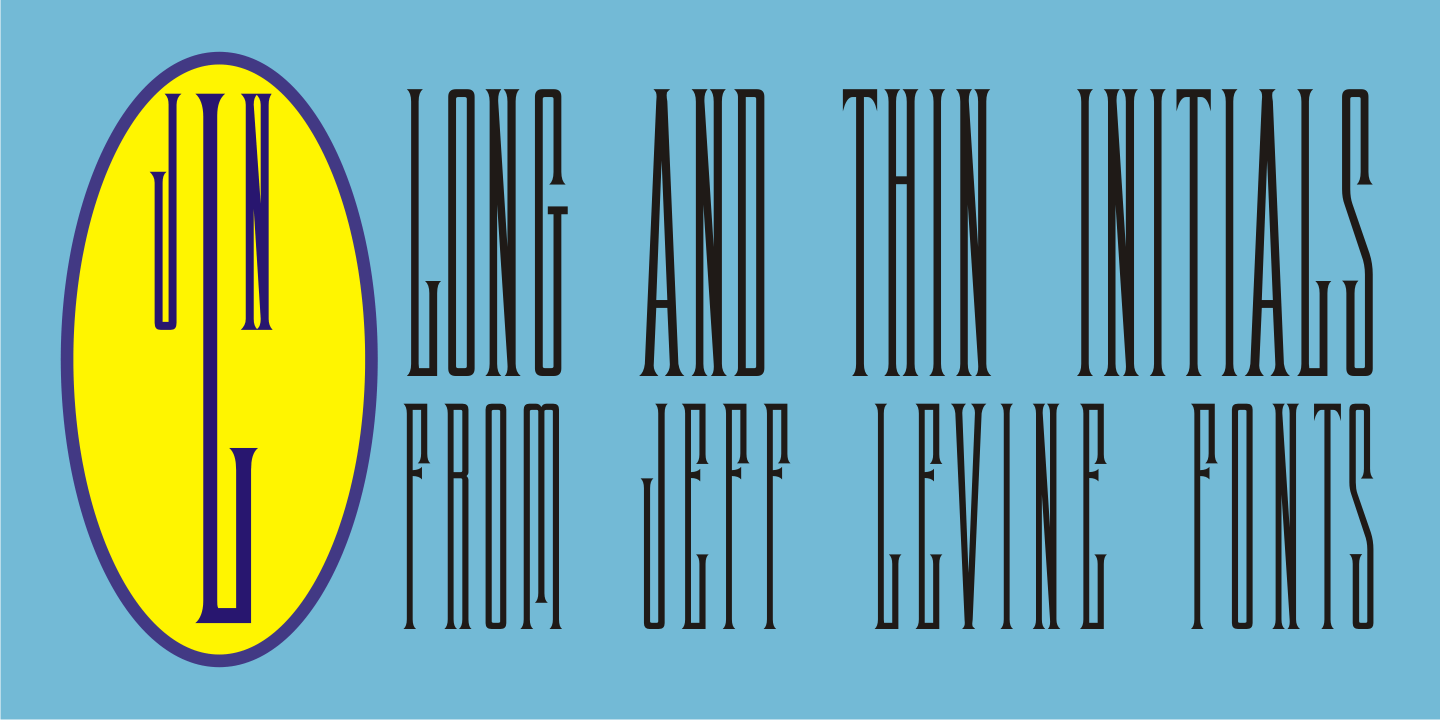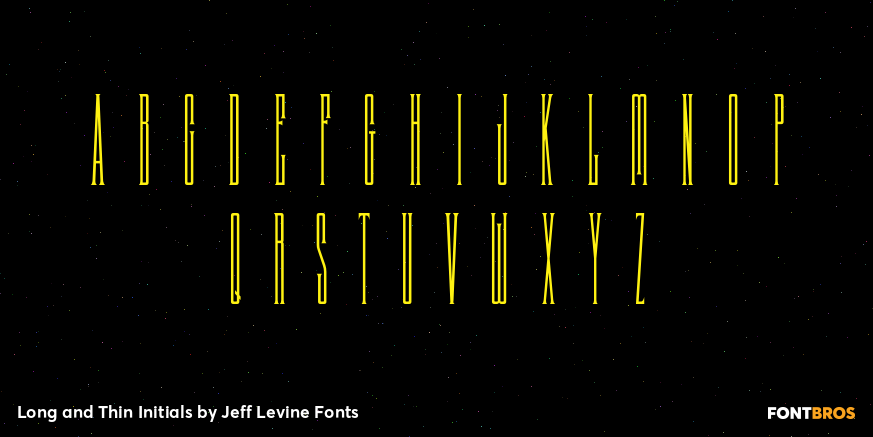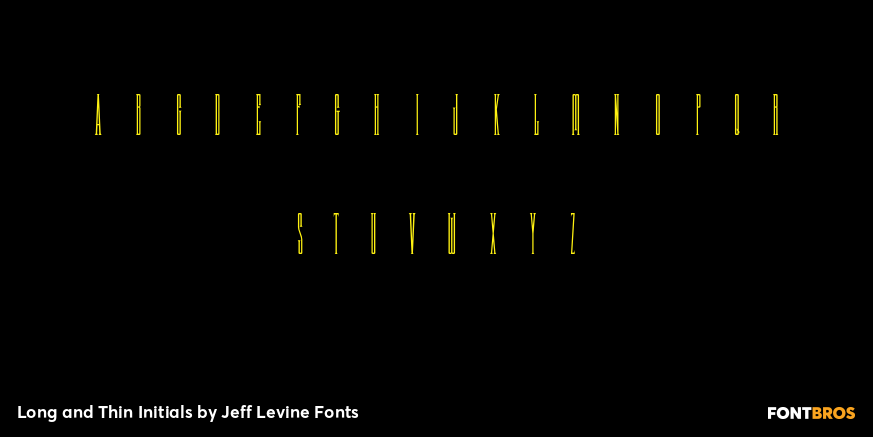
Long and Thin Initials
Based on some vintage metal type initial monograms, Long and Thin Initials JNL reproduces this condensed spur serif design in digital form.